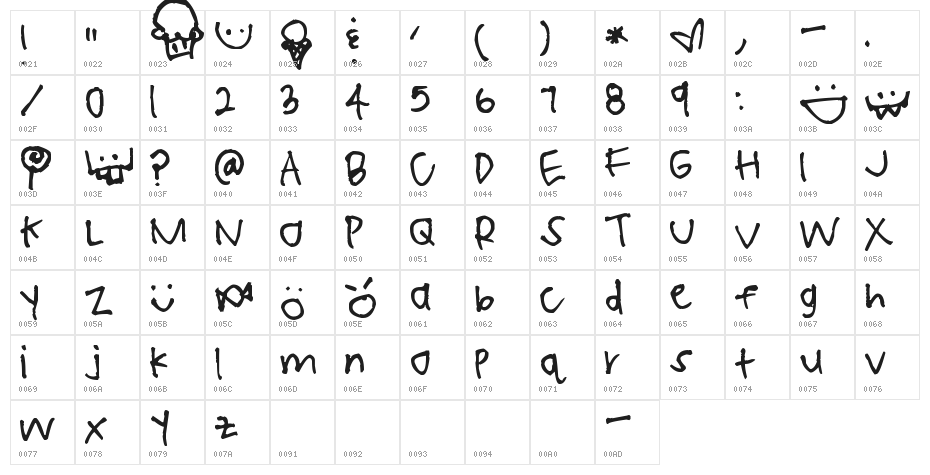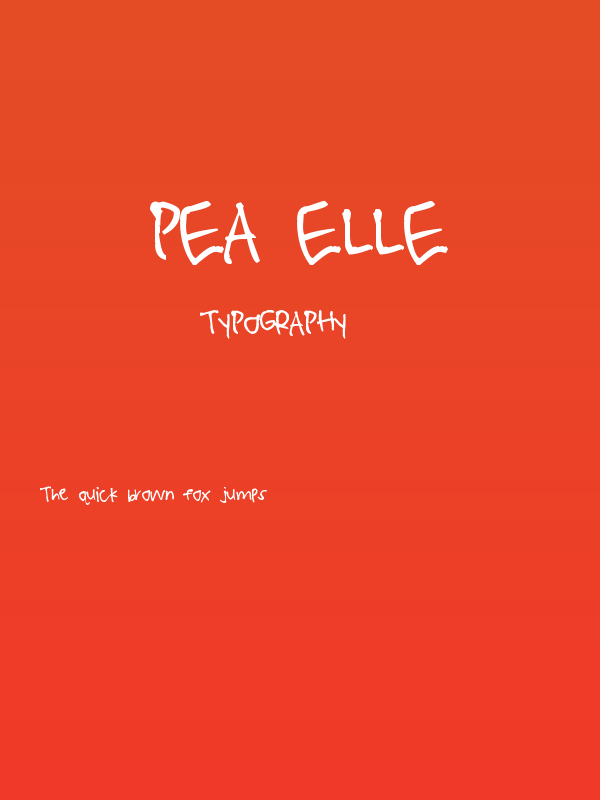
Pea Elle Font
| Stile generale | Casual, Playful |
| Caso d'uso | Headlines, Informal text, Creative projects |
| Progetti proposti | Ideal for greeting cards, children's books, playful branding, and informal invitations. |